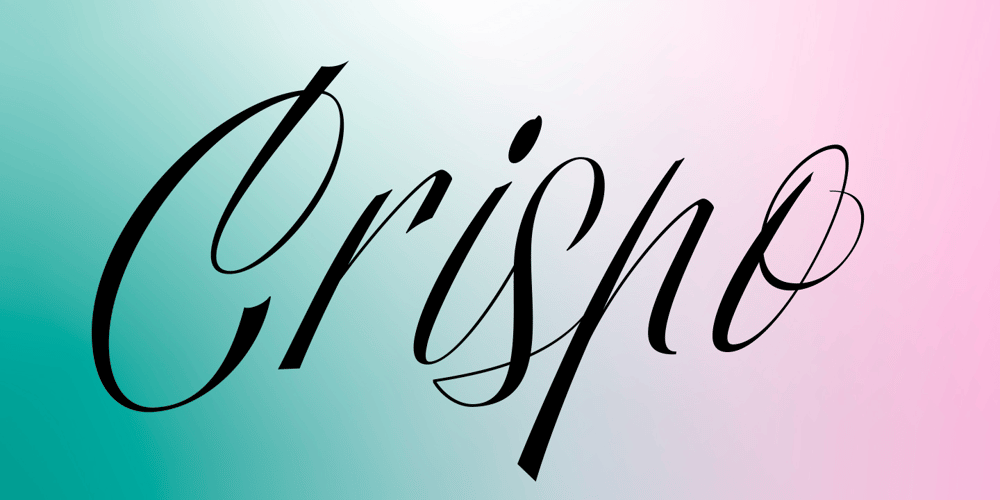
Crispo Font Family was designed by Giuseppe Salerno, Paco González and published by Resistenza. Crispo contains 1 styles and family package options. Prepare to be enchanted by the artistry of “Crispo,” a font meticulously crafted through the delicate strokes of pointed pen calligraphy. In the world of typography, each character becomes a masterpiece, resonating with the eloquence of a brushstroke.Experience the Dynamic Elegance of Pointed Pen Mastery:Elegance with “Crispo” transcends mere quality; it embodies the essence of pointed pen calligraphy as a true masterpiece. The flowing lines and timeless grace of every character reflect the precision and artistry embedded in this refined craft.In the realm of fonts, “Crispo” emerges as a distinctive personality, each character meticulously handcrafted with a pointed pen. These letters aren’t mere symbols; they roar with the passion and personality of a master calligrapher’s ink, leaving an indelible mark on your creative endeavors.”Crispo” is more than a font; it’s a genuine work of art inspired by the rich traditions of calligraphy. It serves as the embodiment of the pointed pen’s craftsmanship, where each curve and ligature is shaped with meticulous care, inviting you to delve into the world of true artistic expression.The elegance within “Crispo” extends beyond appearances; it resides in the essence of each stroke. Every character, ligature, and swash is a testament to the beauty of pointed pen calligraphy, culminating in a font that stands unparalleled in its grace and sophistication.Whether you’re crafting wedding invitations, establishing brand identities, or embarking on any project that craves distinction, “Crispo” unlocks the door to limitless creative expression. Courtesy of pointed pen calligraphy’s mastery, this font becomes your brush, painting a story of elegance and distinction.”Crispo” is not just a font; it’s a journey through the soul of pointed pen calligraphy. It encapsulates the brushstroke of a skilled hand, the dance of ink on paper, and the unwavering passion behind every character.Step into the enchanting world of “Crispo” and infuse your designs with the dynamic elegance and strong personality of pointed pen calligraphy.